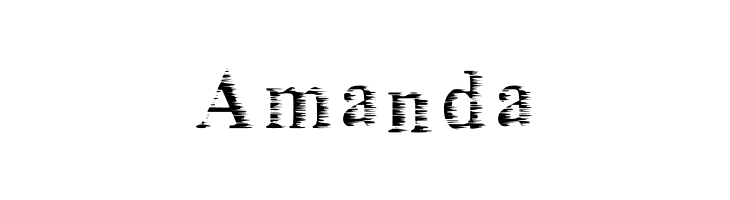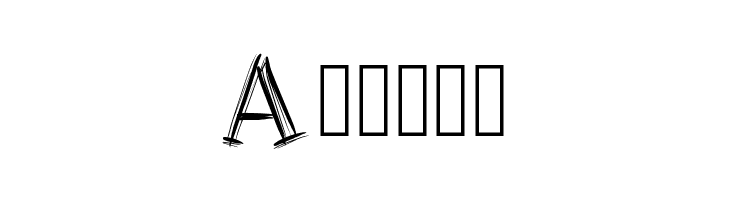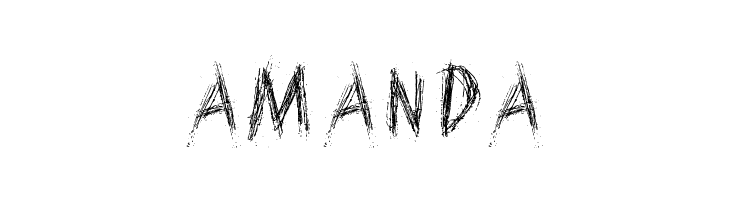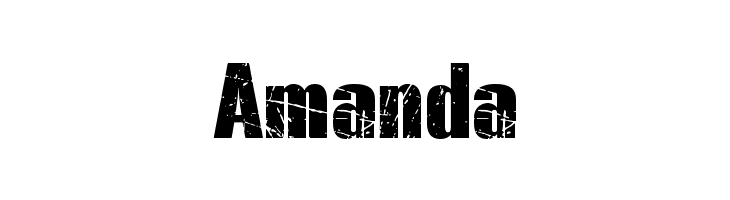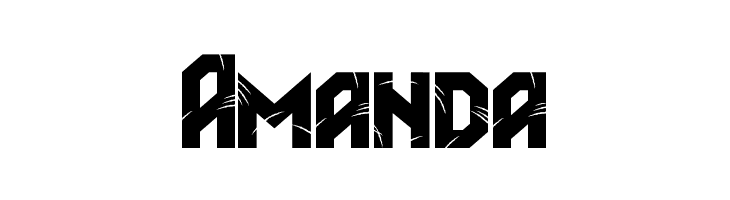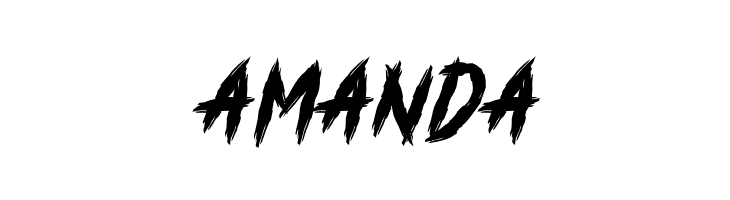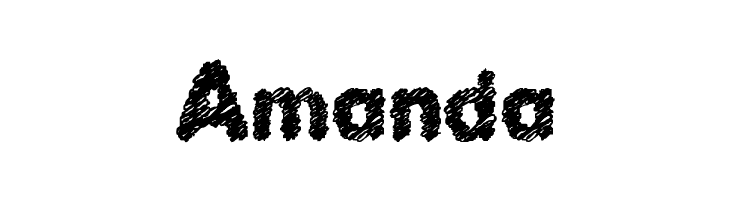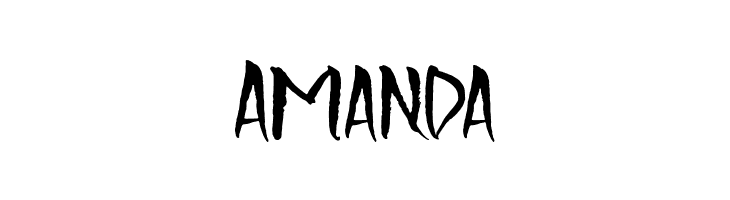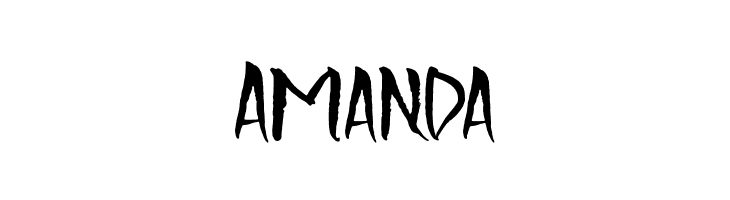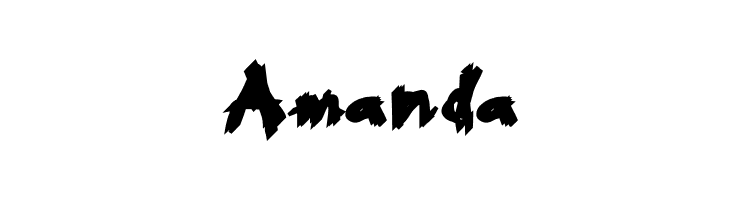
Scratched Letters Font
A bold, distressed font with a scratched texture, perfect for edgy designs.
ScratchedLetters Font
A bold, distressed font with a scratched texture, perfect for edgy designs.
A Scratched Remix Font
A grid of bold, outlined rectangles with a minimalist aesthetic.
BLUEFISH SCRATCHED Demo Font
A bold, distressed font with a scratched, vintage appearance.
BLUEFISH BLACK SCRATCHED Demo Font
A bold, distressed font with a scratched texture for a rugged look.
Scratched on X Ray Font
A distressed, hand-drawn font with a raw, edgy appearance.
Roy's Scratched Handwritting Font
A bold, jagged font with a scratched, handwritten appearance.
Scratched car paint Font
A distressed, graffiti-like font with jagged, uneven strokes and a rebellious aesthetic.
Scratched Font
A playful, hand-drawn font with an artistic and whimsical style.
Scratched-Italic Font
A dynamic, handwritten-style font with an italicized, energetic appearance.
Scratchedman-Regular Font
A bold, textured, hand-drawn font with a brush-like appearance.
Scratchedman Regular Font
A bold, hand-drawn font with a rough, textured brush stroke appearance.